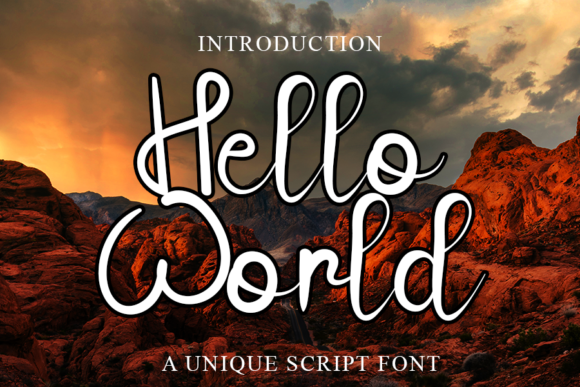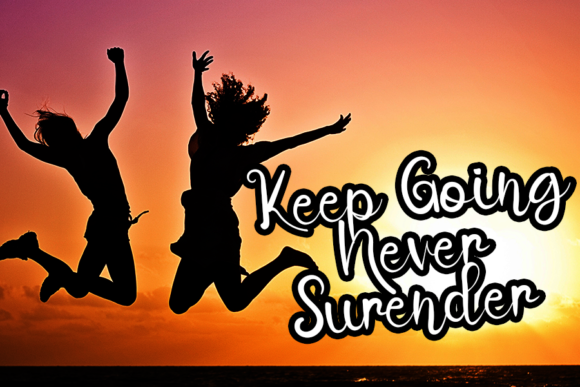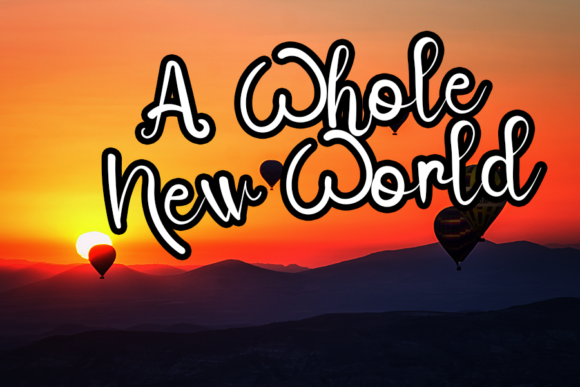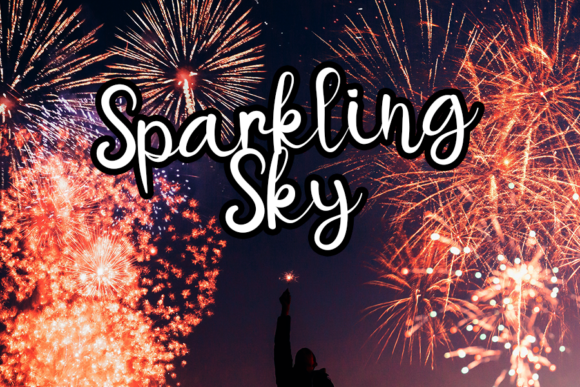
About Hello World Font
HelloWorld is a chic script font featuring charming, playful characters that seem to dance along the baseline. Add this font to your most creative ideas, and notice how it makes them stand out!â¨